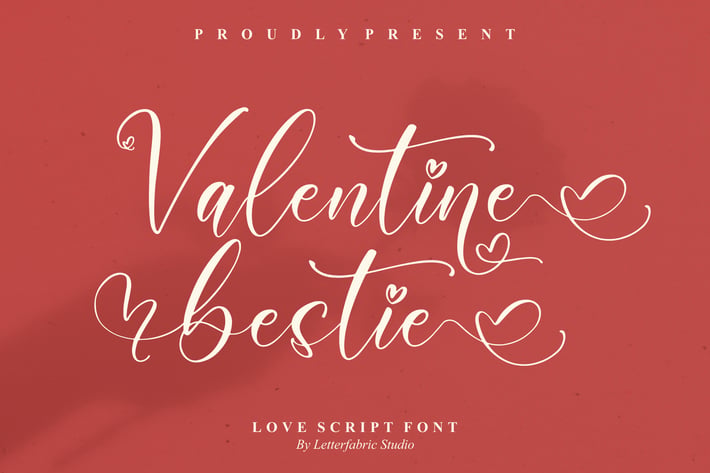
Valentine Bestie Love Script Font
Valentine Bestie is a sweet, swirling love-script that balances playful heart flourishes with elegant calligraphic strokes. Its smooth curves and friendly rhythm make your words feel hand-penned—perfect when you want warmth, romance, and a touch of luxury in every line.
+ Uppercase & lowercase letters with smooth, consistent baseline
+ Stylistic alternates, contextual ligatures & lovable heart swashes
+ Numerals, punctuation & symbols
+ Optimized kerning & clean nodes for crisp results at any size
Perfect for:
+ Wedding & engagement invitations
+ Valentine’s campaigns and greeting cards
+ Romantic logos & boutique branding
+ Quotes, love notes, and stationery
+ Social media posts, reels & story covers
+ Gift packaging, tags & product labels
+ Scrapbooks, prints, and wall art
Say it with swoon—let every stroke whisper be mine.